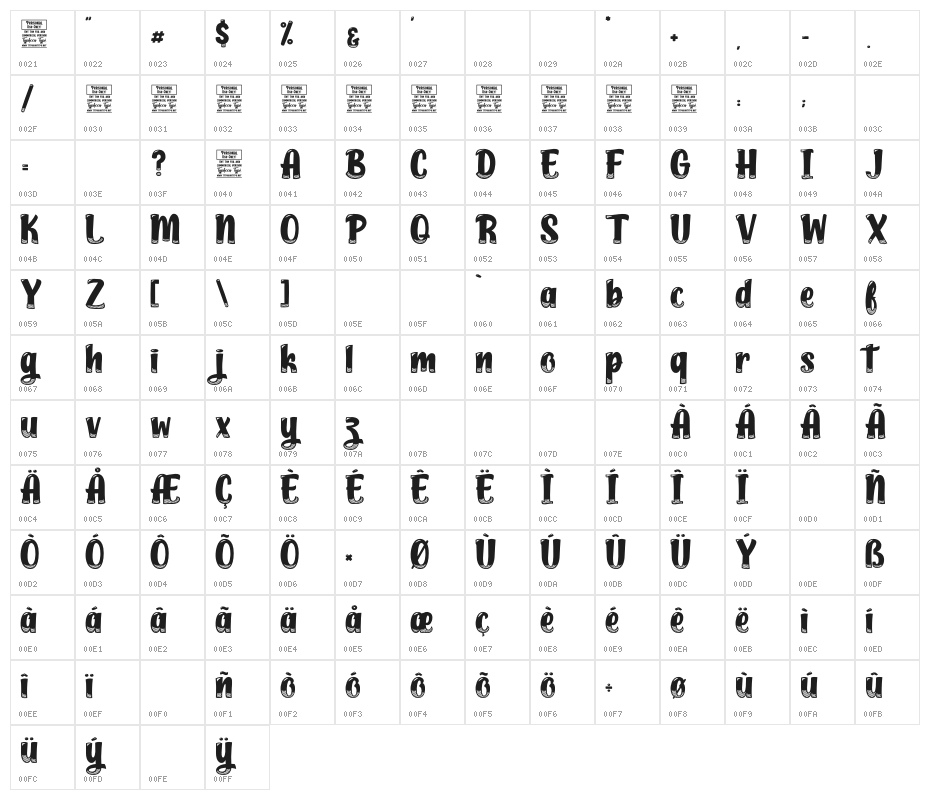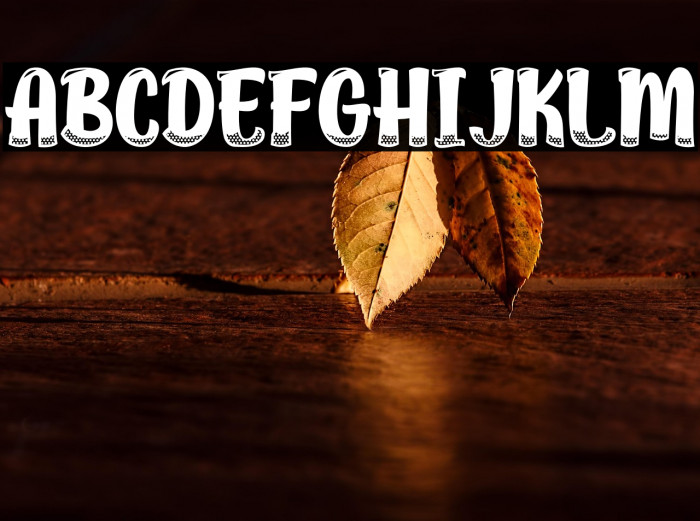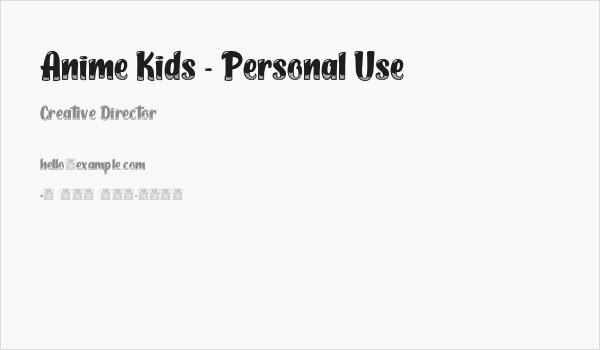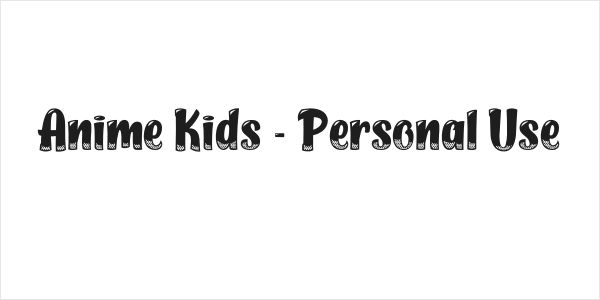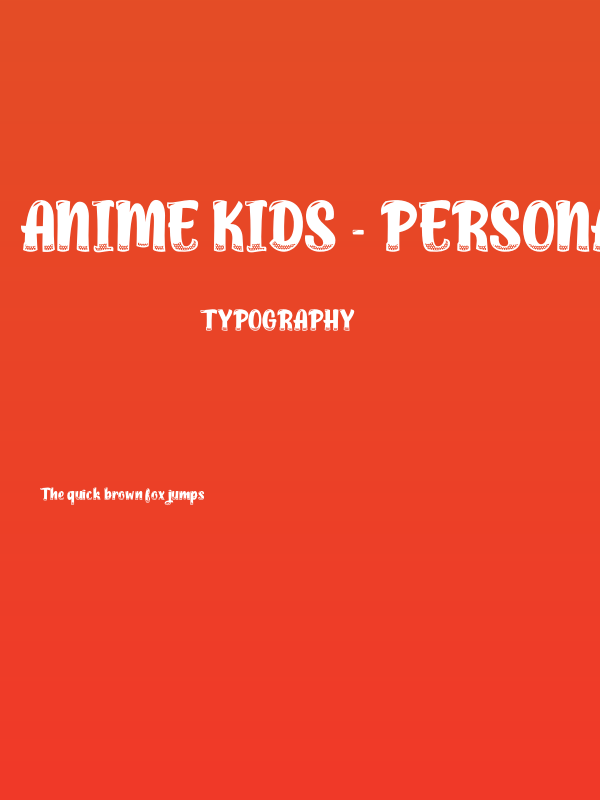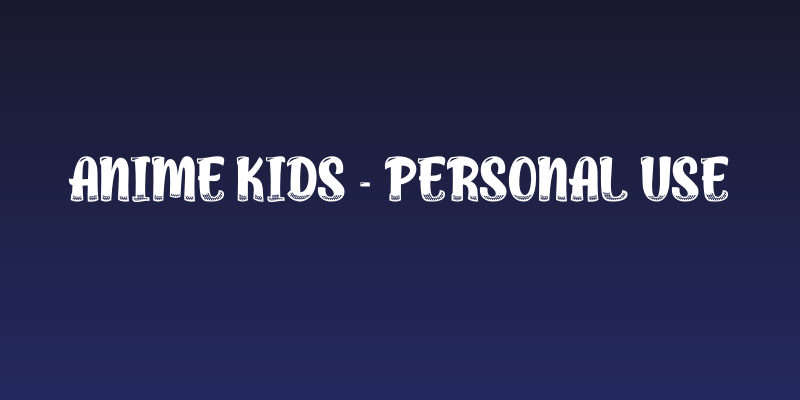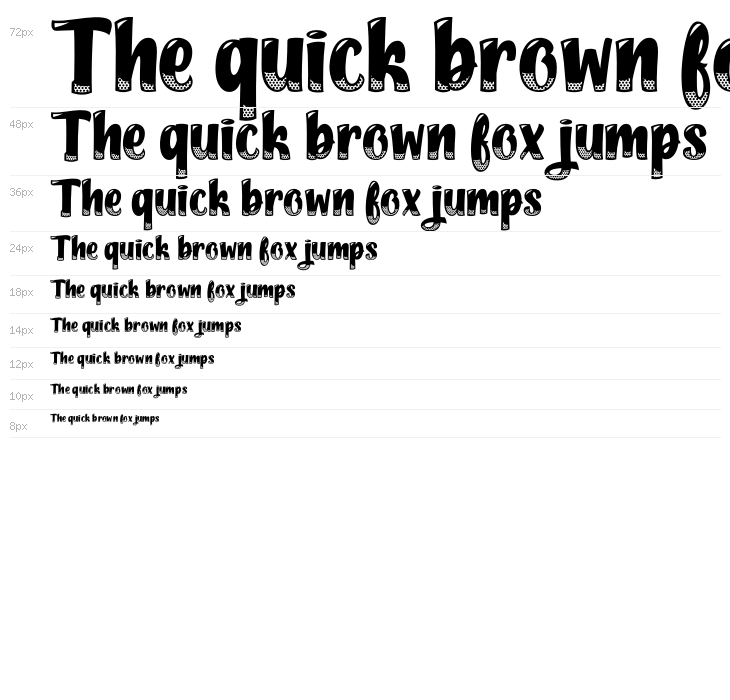
Anime Kids - Personal Use Font
Anime Kids - Personal Use Description
This playful and bold font features a whimsical design with a cartoon-like appearance. The letters are thick and rounded, with a unique pattern at the base of each character that adds a fun, textured effect. The uppercase and lowercase letters maintain a consistent style, making it suitable for projects that require a lively and engaging look. The font includes a full set of numerals and a selection of special characters, ensuring versatility in various design contexts. Its bold strokes and decorative elements make it stand out, ideal for capturing attention in creative projects.
| Overall Style | Playful, Cartoonish |
| Proposed Projects | Ideal for children's books, playful branding, posters, and party invitations. |